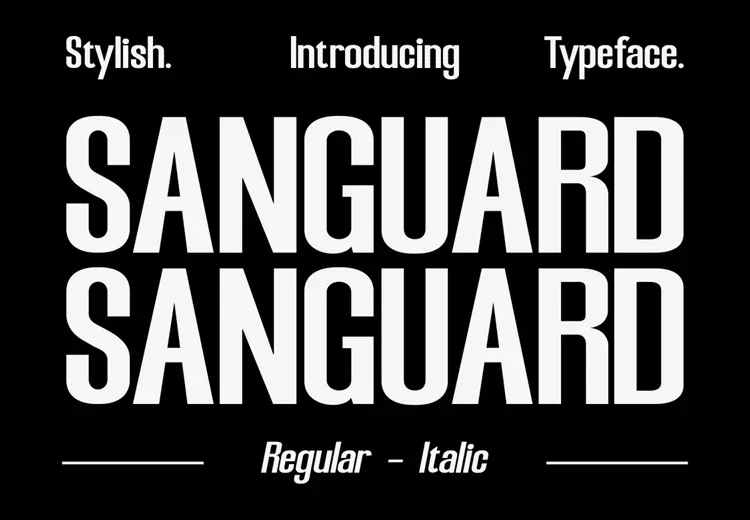
Sanguard Font
Sanguard is a sleek and elegant sans-serif font that perfectly balances modern design with professional appeal. With its clean-cut and polished style, Sanguard is ideal for enhancing visual designs with a contemporary edge. Its refined aesthetic makes it versatile for numerous applications, whether you’re designing logos, crafting headers, or creating professional layouts.
This font injects sophistication into your text, ensuring it stands out with a modern and polished look. From branding projects to digital designs, Sanguard is an excellent choice for adding a professional flair.